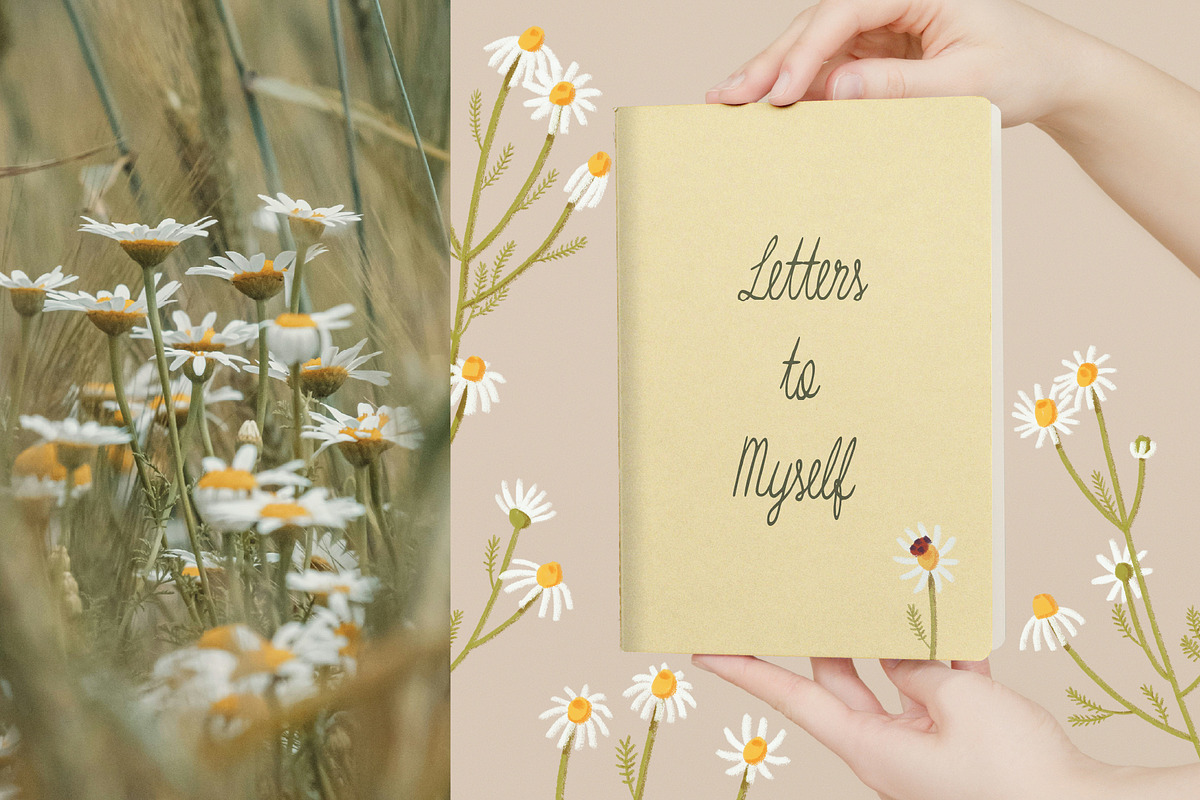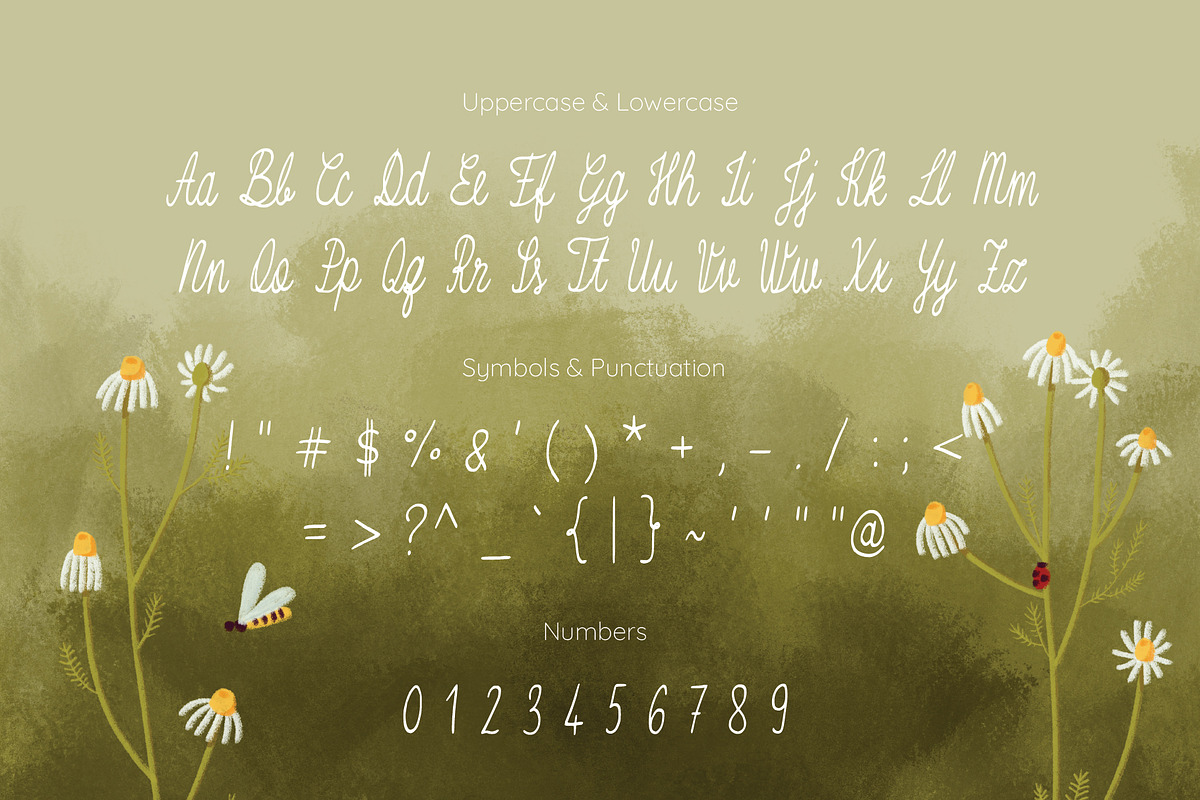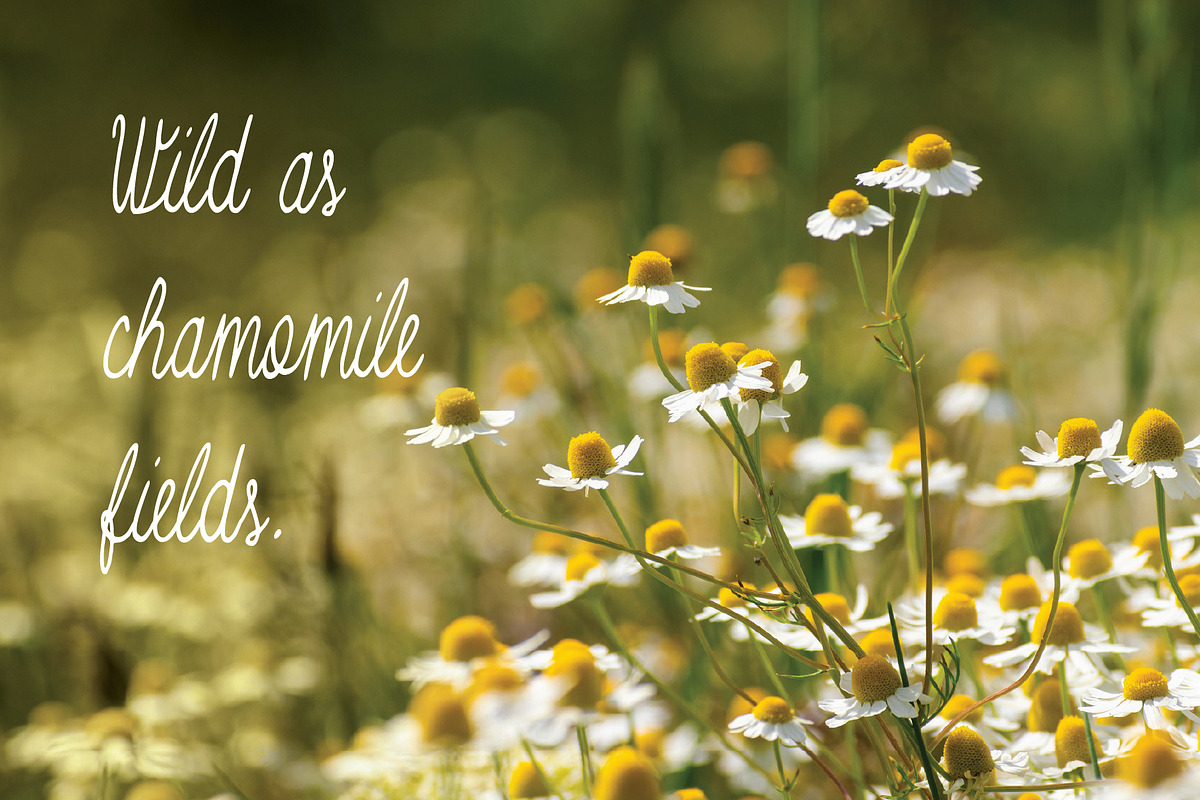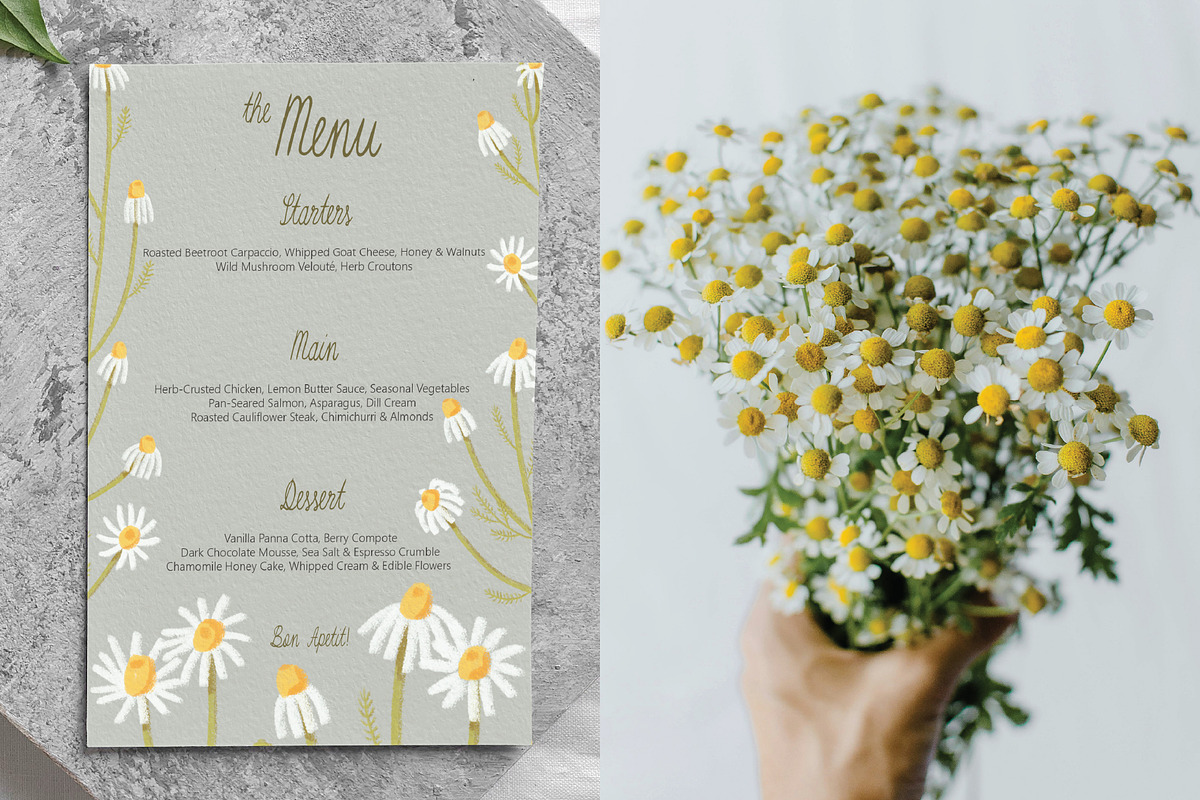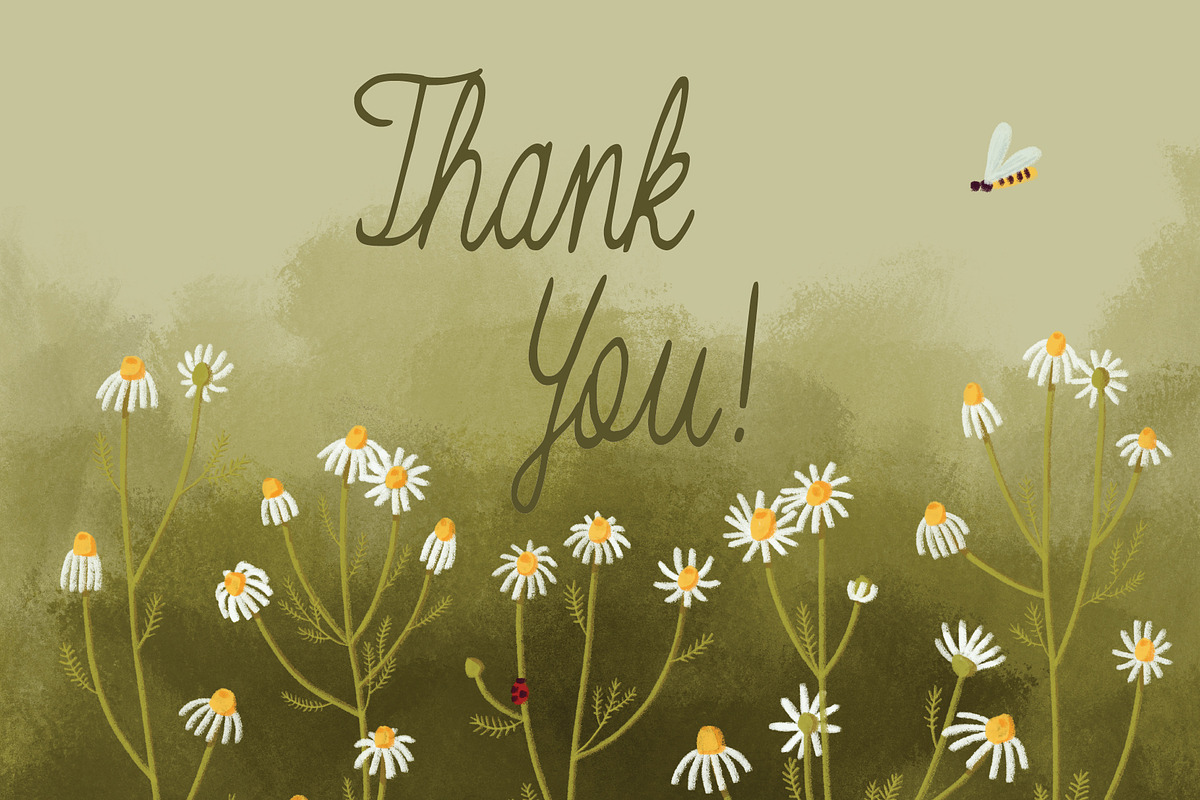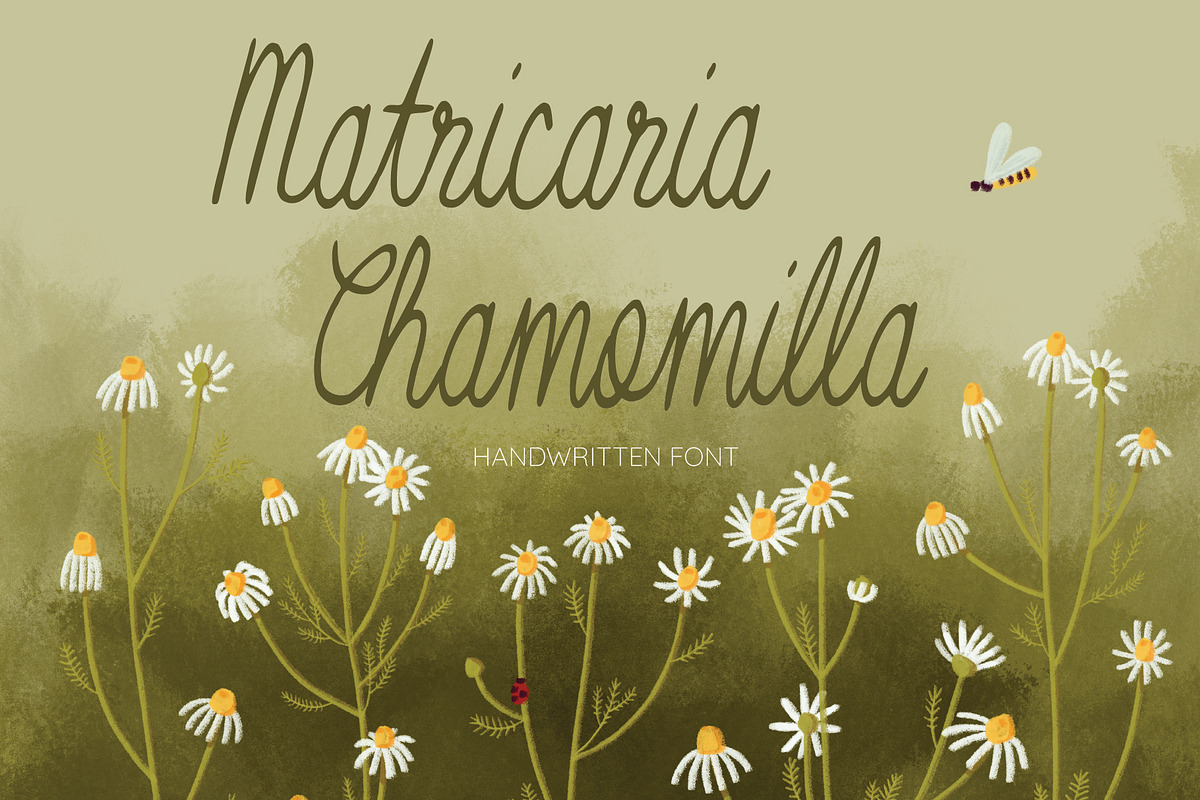
Matricaria Chamomilla Script
Matricaria Chamomilla Script is an elegant handwritten typeface inspired by chamomile flowers and vintage botanical illustrations. Its flowing curves and natural rhythm create a soft, romantic, and organic feel.
Designed as a display font, it adds warmth and refinement without overpowering your composition. Ideal for wedding stationery, floral branding, beauty packaging, logos, and editorial design.
Suitable for: – Wedding invitations & stationery – Botanical and floral branding – Beauty and skincare packaging – Logos and signature-style designs – Editorial layouts and quotes
Best used for headings, logos, and short phrases where its natural flow can shine.